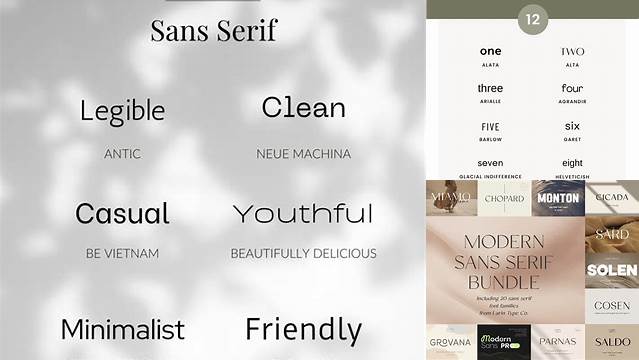
Canva's Modern Sans Serif Fonts: A Design Guide
Hey there, design enthusiasts! Ever wondered how to elevate your Canva creations with a touch of modern elegance? Well, look no further! Today, we're diving headfirst into the world of modern sans serif fonts within Canva. I'll break down everything you need to know, from the basics to the nitty-gritty details, so you can create stunning visuals that grab attention. Let's get started, shall we?
Exploring the Allure of Modern Sans Serif Fonts in Canva
So, what exactly is a modern sans serif font, and why should you care? Okay, so, a sans serif font is a typeface without the little strokes, or serifs, at the end of each letter. Think of it as the clean, minimalist cousin of a serif font. Now, when we say modern sans serif, we're talking about fonts that are sleek, often geometric, and exude a sense of contemporary style. These fonts are the darlings of the design world right now, and for good reason! They’re incredibly versatile, working beautifully in everything from website headings to social media graphics and even printed materials. Using modern sans serif fonts in Canva can significantly enhance your design, giving it a professional and up-to-date feel. These fonts have a certain level of readability, making it a favorite among designers, and it also gives off an aura of simplicity, which is a total plus.
Using modern sans serif fonts in Canva will let you keep up with modern trends. You can create minimalist designs, using some negative space to focus on the core message. They also work well in conveying a sense of trustworthiness. When crafting presentations, these fonts provide clarity, especially when displaying important statistics or summaries. Also, it creates a sense of modernity that is ideal for tech-related concepts or any topic with a futuristic theme. Using the right font can significantly impact how your audience perceives your work. Modern sans serif fonts in Canva offer a sleek, contemporary appearance that is both stylish and highly readable. For various projects, these fonts are versatile and functional, which can make your design stand out. You can also use these fonts to create branding that is clean and memorable. When using these fonts, you can create consistency with your brand identity, especially on digital platforms, like Instagram or even Facebook, where consistency is important. In addition to that, modern sans serif fonts work wonders in digital interfaces. They improve readability in website designs and app layouts, ensuring that the user can navigate the content effectively. It's all about the user experience, which is what these fonts provide.
Alright, let's get down to the good stuff: how these fonts make your designs pop. First off, they're incredibly versatile. Need to create a flyer for your next event? A clean, modern sans serif font will make it look sleek and professional. Building a website? Choose a font that's easy on the eyes and aligns with your brand identity. From headlines to body text, these fonts provide a visually appealing and easily readable experience. With Canva, you have access to a vast library of modern sans serif fonts. You can easily incorporate them into your projects. The impact these fonts create goes beyond their appearance. They influence how your audience perceives your work, leaving a lasting impression. A well-chosen font can convey professionalism, modernity, and trustworthiness, making your design more engaging and effective. So, whether you're designing for business, personal projects, or social media, mastering these fonts is a game-changer. They’re the secret weapon for anyone aiming to create designs that stand out. So you'll see how these fonts will transform your designs and make them look even better.
Key Takeaways
- Versatility: Excellent for various design projects, from marketing materials to website design.
- Modern Aesthetic: Instantly gives a contemporary and clean look.
- Readability: Ensures easy reading across various mediums.
- Branding: Helps establish a consistent and professional brand image.
- Impact: Enhances the overall user experience.
Unveiling Top Modern Sans Serif Font Choices in Canva
Alright, let's get down to brass tacks. You're probably itching to know which modern sans serif fonts in Canva are the real MVPs. Well, you're in luck! Canva boasts a fantastic selection of fonts that will elevate your designs. Some are classic, some are trendy, but they all bring a touch of modern flair. Let’s dive into some of the best ones, shall we? One of the most popular is 'Poppins.' It’s a geometric sans serif that’s clean, highly readable, and works beautifully in both headings and body text. Think of it as your reliable friend in the font world. It's versatile enough to be used for a wide range of design projects, making it a safe and stylish choice. Next up is 'Montserrat.' It's another geometric sans serif, inspired by the architectural signage of the Montserrat neighborhood in Buenos Aires. It’s a bit bolder than Poppins, making it perfect for headings and anything where you want to make a statement. It exudes a sense of confidence and modernity. Then there is 'Lato.' This one is a bit more rounded and friendly, offering a soft yet modern look. It's great for body text, offering excellent readability, making it an excellent choice for longer content. 'Open Sans' is another favorite. It's a highly legible font, known for its neutrality and versatility, making it perfect for websites and documents that prioritize readability. These fonts ensure that the information is easy to read and understand, adding a layer of polish to your designs.
Also, keep in mind that you can also experiment with different font pairings to create visually interesting designs. For instance, pairing a bold sans serif heading with a lighter sans serif for the body text. Mixing and matching fonts can give your work a unique flair. Canva allows you to combine fonts to create designs that capture your unique branding. When choosing fonts, it is very important to ensure that they complement each other, which will avoid visual distractions. When you choose the right combinations, they will enhance your design. But, where to begin? Consider using a heading and body text. For your headings, choose a bold font. The body text should be easy to read. You can also explore different font pairings. Canva's vast collection provides flexibility to find what works best. Moreover, Canva allows for customized font adjustments. Adjust the size, spacing, and color to fit your needs. This ensures that the fonts complement your overall design. Remember, the goal is to create a cohesive look that highlights your message.
Key Takeaways
- Poppins: Versatile and readable, perfect for various applications.
- Montserrat: Bold and impactful, great for headings and statements.
- Lato: Rounded and friendly, ideal for body text and softer designs.
- Open Sans: Legible and neutral, excellent for readability-focused projects.
- Pairing: Explore combining fonts for a unique and visually appealing design.
Mastering Font Pairing: Combining Modern Sans Serifs in Canva
Alright, you've got your favorite modern sans serif fonts picked out, but now what? One of the keys to a stellar design is mastering font pairing. Think of it as the art of matching the right fonts to create visual harmony and interest. This is where your designs go from good to great. The goal is to find combinations that complement each other, enhancing readability and conveying your message effectively. When pairing fonts, contrast is your friend. Try pairing a bold, impactful font for your headings with a clean, readable font for your body text. This creates a visual hierarchy, guiding the reader's eye and making your content easy to digest. Canva makes it easy to experiment with different pairings. You can try mixing a bold, geometric font for your headings with a softer, more rounded font for your body text. The contrast will add depth and visual interest to your design. Try to ensure that the fonts complement each other without clashing. When pairing fonts, think about the personality you want to convey. Are you going for a modern, minimalist look? Or are you aiming for something a bit more playful? Your font choices should reflect your brand's identity and the tone of your message. Experimenting with different font combinations in Canva will help you find the perfect pairing. Using Canva's features, you can quickly try out different font combinations. Use the font size and weight adjustments to enhance readability and ensure the fonts complement each other. The right font combinations can significantly improve your design, whether it is on social media posts or even printed materials.
Keep in mind that readability is king. Choose fonts that are easy on the eyes, especially for body text. It does not matter how beautiful a font is if no one can read it! You want your message to be clear, so readability should always be a priority. When selecting fonts for your design, readability should be a top priority. The key to successful font pairings is finding combinations that harmonize. The right pairings will create a design that looks good and is easy to read. Ensure that the fonts complement your overall aesthetic. This will bring your design to life. Embrace the art of font pairing. It is the secret to designs that are both visually appealing and effective. The more you practice, the better you'll become at spotting those perfect pairings. So go ahead, get creative, and start experimenting with different combinations in Canva! The possibilities are endless.
Key Takeaways
- Contrast: Pair bold headings with clean body text for visual hierarchy.
- Personality: Align font choices with your brand identity.
- Readability: Prioritize easy-to-read fonts for body text.
- Experimentation: Use Canva's tools to try different combinations.
- Harmony: Ensure fonts complement each other without clashing.
Creating Visual Hierarchy with Modern Sans Serif Fonts in Canva
Okay, now that you know about the fonts, how do you make them work for you? Let's talk about visual hierarchy. This is all about guiding your viewer's eye and making your design easy to understand. Think of it as organizing your content to make it clear what's most important. With modern sans serif fonts, you can create a strong visual hierarchy that draws attention to your key messages. You can do this by varying the size, weight, and style of your fonts. The goal is to make the most important elements stand out. For example, you can use a larger, bolder font for your headings, a slightly smaller font for subheadings, and a standard size for your body text. This creates a clear visual flow, making it easy for the reader to scan the content and understand the main points. Canva's font tools make it easy to create a strong visual hierarchy. You can easily adjust the font size, weight (boldness), and style (italic, etc.). Experiment with these settings to see how they impact your design. The bigger and bolder the font, the more attention it will grab. The goal is to create a visual flow, making the most important elements stand out. Create a visual flow that guides the viewer's eye. You can vary font sizes to indicate importance. Create subheadings in a smaller font size. Adjust the font weight to add emphasis. The proper use of these will create a clear hierarchy within your design. These help to organize the content, making it easier to digest. The proper use of font sizes and weights is vital in conveying the content. They guide the reader's eye, creating a clear path. The more you experiment with Canva's features, the better you'll get. Your designs will be more compelling and easier to understand.
Let's talk about how to use this in practice. Imagine you're creating a poster for an event. Use a large, bold font for the event title to grab attention. Use a slightly smaller font for the date, time, and location. Use a regular size and weight for the description of the event. This creates a clear visual hierarchy, making it easy for people to understand the essential information at a glance. With modern sans serif fonts, you're already halfway there. They're inherently clean and readable, making it easier to create a visual hierarchy. You just have to combine them strategically to make your design truly shine. By varying the size, weight, and style, you can lead the viewer's eye through your content. The use of a visual hierarchy will guide your audience. If you're designing for social media, consider what will catch the viewer's eye first. Use these techniques to highlight key information, keeping the focus on the message. The correct visual hierarchy will make the experience more efficient. The audience will be able to grasp information quickly. It also enhances the overall readability. So, go ahead, experiment with font sizes and weights in Canva. See how they transform your designs.
Key Takeaways
- Font Size: Use larger fonts for headings and smaller ones for body text.
- Font Weight: Use bold fonts for emphasis and lighter weights for body text.
- Style: Use italics or other styles for highlighting specific words or phrases.
- Visual Flow: Create a clear path for the viewer's eye.
- Emphasis: Make important information stand out.
Modern Sans Serif Fonts: Tips for Readability and Accessibility in Canva
Alright, let's talk about how to make sure your designs are not only beautiful but also easy for everyone to read. We want our designs to be accessible to all. This is very important. So, how do you make your Canva creations readable for everyone, especially when using modern sans serif fonts? Here are a few essential tips. First, choose fonts with good legibility. This means avoiding fonts that are overly stylized or have thin strokes. Even though they might look stylish, if they're hard to read, they won't do the job. Fonts like Poppins, Open Sans, and Lato are excellent choices because they are known for their clear letterforms. Ensure there is enough contrast between the text color and the background. Dark text on a light background is usually a good bet. Also, avoid using colors that clash, which will make your text difficult to read. Canva allows you to experiment with different color combinations. So, you can ensure that your designs are accessible to all. Adjust the size of your fonts to ensure readability. Body text should be large enough to be read comfortably. Experiment with different sizes to ensure that it is easily readable. You can also adjust the spacing between letters (tracking) and lines (leading) to improve readability. A bit of extra space can go a long way in making your text easier on the eyes. Proper spacing will also help with readability. Ensure that the text doesn't feel cluttered. Use modern sans serif fonts that are known for clarity. Canva will provide tools to adjust the spacing. This ensures that the text is easy to read. It's a critical step in improving accessibility. By taking these steps, you can create designs that are not only visually appealing but also inclusive and easy for everyone to enjoy. Your goal is to create designs that are accessible for everyone. By implementing these practices, you can make your design more inclusive.
One more important tip: consider your audience. If you're designing for a younger audience, you might be able to get away with slightly smaller font sizes and more playful styles. However, when designing for older audiences, consider using larger font sizes and more straightforward fonts. Also, consider the context of your design. Is it being viewed on a small screen, like a phone? Or is it a large printed poster? Adjust your font choices and sizes accordingly. The goal is to create designs that look good, are easy to read, and that reach as many people as possible. So, let's make sure everyone can enjoy your amazing designs. Remember that accessibility is key. Making your designs user-friendly is very important. This will ensure that your message reaches the maximum number of people. By creating designs that prioritize readability, you're not just making them look good. You're also making them more effective. Good typography is all about making your message clear and accessible to everyone. So, let’s make your designs shine.
Key Takeaways
- Legibility: Choose fonts with clear letterforms (e.g., Poppins, Open Sans, Lato).
- Contrast: Ensure enough contrast between text and background colors.
- Font Size: Adjust font sizes for readability, especially for body text.
- Spacing: Adjust letter and line spacing for improved readability.
- Audience: Consider your audience and the context of your design.
Leveraging Canva's Features: Editing and Customizing Modern Sans Serif Fonts
Alright, now that you know all about modern sans serif fonts and how to make them work for you, let's dive into how to actually use them in Canva. Canva is a powerful tool, with lots of features that will help you edit and customize your fonts to perfection. Let's get started, shall we? First, let's talk about how to change the font. Canva makes it incredibly easy. Click on the text box you want to edit, go to the font dropdown menu in the top toolbar, and browse the library of fonts. You can search for specific fonts by name or browse through the categories to find the perfect one. You can even filter the font library. So, finding the perfect modern sans serif font is a breeze. Once you've selected your font, you can adjust the size. Use the font size dropdown menu or drag the corner of the text box to make it larger or smaller. You can also adjust the font weight (bold, italic, etc.) and style (underline) using the options in the top toolbar. The options allow you to make your text stand out. The weight and style options will allow you to make the text stand out, making it an important element of your design.
Next up, let's talk about spacing. Canva provides different options to adjust the spacing between letters (tracking) and lines (leading). This is key to improving readability. You can also adjust the alignment of your text (left, center, right, justified) to create the perfect layout. Canva allows you to customize your fonts. Adjust the spacing, create layout and ensure that your design is visually appealing. This allows you to create a design that is readable. Canva also allows for text effects. You can add shadows, outlines, and other effects to make your text even more visually appealing. You can experiment with these features to create unique designs. These effects can create a visual appeal in your text. You can also play with the color of your fonts. Canva allows you to choose from a wide range of colors. Choose colors that complement your overall design. With modern sans serif fonts, you can ensure that the text is visible and enhances your message. Moreover, using the color palette will add a visual dimension to your text, helping to reinforce your brand's identity. This will ensure that the text stands out. Also, Canva allows you to group text elements. This is useful when you want to move or resize multiple text boxes at once. This is useful for organizing different text elements. Using these features will save you time and effort when designing. Using these tools, you can create designs that are both visually appealing and professional. The more you practice, the better you'll get at using these features. The key is to experiment with all the options until you find the perfect look for your design.
Key Takeaways
- Font Selection: Easily change fonts in the top toolbar.
- Font Size, Weight, and Style: Adjust these settings using the toolbar options.
- Spacing: Customize letter and line spacing for readability.
- Alignment: Align text (left, center, right, justified) for perfect layout.
- Text Effects: Add shadows, outlines, and other effects.
Best Practices: Applying Modern Sans Serif Fonts in Various Canva Projects
Okay, now you're equipped with the knowledge. Let's talk about how to put it all into practice. Knowing the basics of modern sans serif fonts is one thing, but knowing how to apply them in different Canva projects is another. Let’s explore how you can use these fonts in various design contexts, ensuring your creations always look top-notch. First, let's talk about social media graphics. Social media is all about visuals, so you need to ensure your posts are eye-catching. Choose a bold, readable modern sans serif font for your headings. Use a lighter, more readable font for your body text. Keep it clean, simple, and consistent with your brand's visual identity. This will ensure that your posts look professional and consistent. For instance, using a bold sans serif font for the main headline will grab your audience's attention, with a subtle font style for the details. Make sure your visuals align with your brand. Consistency is key. Also, use high-quality images and graphics to support your text. This is a great way to boost engagement. For web design, you want to ensure your website is easy to read and navigate. Choose a clean, readable font for your body text. Use headings in a slightly bolder font. Ensure the font is legible. You want to create an easy and seamless user experience. Choose a font that fits your overall brand. Choose a font that is easy on the eyes. The modern sans serif fonts will help make the website more appealing to the reader. This will make your website look modern and easy to read. This is especially helpful for your call-to-action buttons. These fonts work great on your website's layout, which can also increase engagement. Always consider the overall layout, which is important in ensuring that your website is visually appealing.
For presentations, clarity and readability are key. Use a clear, concise font for your text. Limit the amount of text on each slide. Your slides should be visually appealing. You want your audience to focus on your message. It is very important that your audience is able to clearly see the font. Choose fonts that are easy to read from a distance. Create a clear visual hierarchy. This will highlight your key points. Use a slightly larger font size for your headings. Use a more readable font for the body text. Using modern sans serif fonts in your presentation is a great way to create clarity. You can also integrate animations and visual elements. You need to maintain the audience's attention. When designing flyers, prioritize readability. Create a strong visual hierarchy to highlight your key information. Use a bold font for your main headline. Use a lighter font for the body text. Ensure the design looks clean and organized. If you can do that, the audience will easily be able to see your message. Consistency is key to branding. When you create your design, make sure that it is consistent with your brand identity. The font should be an extension of the brand. It helps in establishing a strong brand presence. Also, consider using different fonts for different elements. Make sure that all the elements complement your brand identity. These are the different elements in your project. The key is to ensure that it matches your branding. This helps in maintaining a consistent design. Always prioritize legibility and readability. Make sure that the font is clear and readable. When you do this, your message will always be received correctly. These simple steps will transform your designs.
Key Takeaways
- Social Media: Use bold headings and readable body text.
- Web Design: Prioritize clear, readable fonts for body text.
- Presentations: Clarity and readability are key. Make sure that the font is legible.
- Flyers: Prioritize readability with a clear visual hierarchy.
- Branding: Maintain consistency with your brand identity.
Common Mistakes to Avoid When Using Modern Sans Serif Fonts in Canva
Alright, now that you've got all the knowledge, let's talk about common mistakes. These are things that can trip you up, but don't worry, they're easily avoidable. We're here to help you avoid these pitfalls so you can create stunning designs every time. First and foremost, one of the most common mistakes is using too many fonts. It might be tempting to try out every font in Canva, but trust me, less is often more. Sticking to a maximum of two or three fonts will help keep your design clean, cohesive, and easy to read. Mixing and matching fonts can be tricky. You can have different styles, but too many will confuse the reader. It's best to create a sense of uniformity. Also, you can also go overboard with the font sizes and styles. Your goal is to make your design look visually appealing. But, too many font sizes and styles can overwhelm the reader. It's a bad idea to use different fonts in different sizes in every part of your design. Also, make sure to vary the fonts with the proper weight. Use font weight wisely. Bolding everything will diminish its impact. Also, avoid using fonts that are not legible. Even though these fonts may look nice, they are counterproductive. So, choose fonts that work well in the design.
Also, don't forget about contrast. Using the wrong color combinations will make your design unreadable. Light text on a light background or dark text on a dark background is a big no-no. Always ensure there's enough contrast between the text and the background. You can use colors that complement each other. Also, avoid using too many different colors. It can make your design look cluttered. Sticking to a limited color palette will help you create a more visually appealing design. With modern sans serif fonts, you have many design options. You can play around with different design styles. You can create designs that are elegant and modern. However, it is important to make sure your text is easily readable. Moreover, consider the overall layout of your design. The correct layout can enhance readability. When it comes to typography, the spacing is key. A bit of extra space can help make your design look better. This will ensure that it is easy on the eyes. Ensure that your font choices reflect your brand's identity. If you don't do that, your design won't be successful. Using modern sans serif fonts can be an effective way to ensure that your design is consistent with your brand. These are the common mistakes you should avoid when using Canva. You're well on your way to mastering the art of typography!
Key Takeaways
- Too Many Fonts: Stick to a maximum of two or three fonts.
- Font Overload: Avoid excessive font sizes and styles.
- Poor Contrast: Ensure sufficient contrast between text and background.
- Color Chaos: Stick to a limited color palette.
- Brand Mismatch: Choose fonts that reflect your brand identity.
Modern Sans Serif Fonts: Future Trends and Innovations in Canva
Alright, what does the future hold for modern sans serif fonts in Canva? As design trends evolve, so do the fonts we use. Let's take a look at what's on the horizon and how Canva is likely to adapt to these emerging trends. We’re likely to see a rise in variable fonts. These are dynamic fonts that allow you to adjust the weight, width, and style of the font within a single file. They provide endless possibilities for customization and can help you create truly unique designs. Canva is already starting to integrate these, which will give you even more control over your typography. Another trend to watch out for is the continued focus on accessibility. Designers are increasingly prioritizing the readability and inclusivity of their designs. This means that we can expect to see even more emphasis on clear, legible fonts that are easy to read for everyone, regardless of their visual abilities. Canva will likely continue to enhance its font selection and features to support this trend. You may also see a rise in geometric sans serif fonts. The popularity of these fonts has not waned. Their simple, clean lines are perfect for modern designs. As a result, Canva will most likely introduce new geometric sans serif fonts to the platform. They often have a more contemporary feel than classic fonts. In the future, the demand for bold fonts will continue. Bold fonts make a statement and grab attention. Canva will adapt by offering a wider selection of bolder fonts. This will meet the needs of designers looking to create impactful designs. Overall, the future of design in Canva looks exciting. We can expect more innovative features that will give designers more flexibility. This will enable them to create visually stunning designs.
With modern sans serif fonts, you're already ahead of the curve. These fonts are versatile, so they will adapt to changing trends. You can be confident that you're using fonts that will remain relevant for years to come. Canva will continue to provide users with modern fonts that support the evolving design trends. As technology advances, it is likely that we will see even more innovative features. These will enhance our design abilities. Canva's ability to evolve, alongside the constant influx of new features, guarantees that you'll always be able to create designs that stand out. You can also expect to see the integration of AI-powered features that will help you with your font choices. You'll be able to experiment with new font combinations and styles. You'll be able to find the perfect look for your projects. The tools will ensure that your designs will be as engaging as possible. So, whether you're a seasoned designer or just starting out, the future of Canva is bright. Embrace the latest trends, experiment with new fonts, and let your creativity shine. So, always keep an eye on the changes. The trends will help you create designs that are both contemporary and appealing. So, always be creative with the use of modern sans serif fonts.
Key Takeaways
- Variable Fonts: Expect more customization options with variable fonts.
- Accessibility: Continued emphasis on clear, legible fonts.
- Geometric Sans Serifs: Ongoing popularity of clean, modern fonts.
- Bold Fonts: Increased demand for impactful fonts.
- AI Integration: Potential for AI-powered font suggestions.